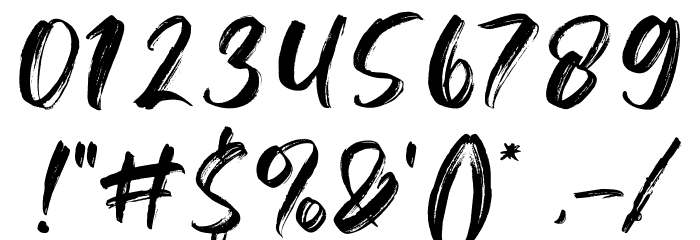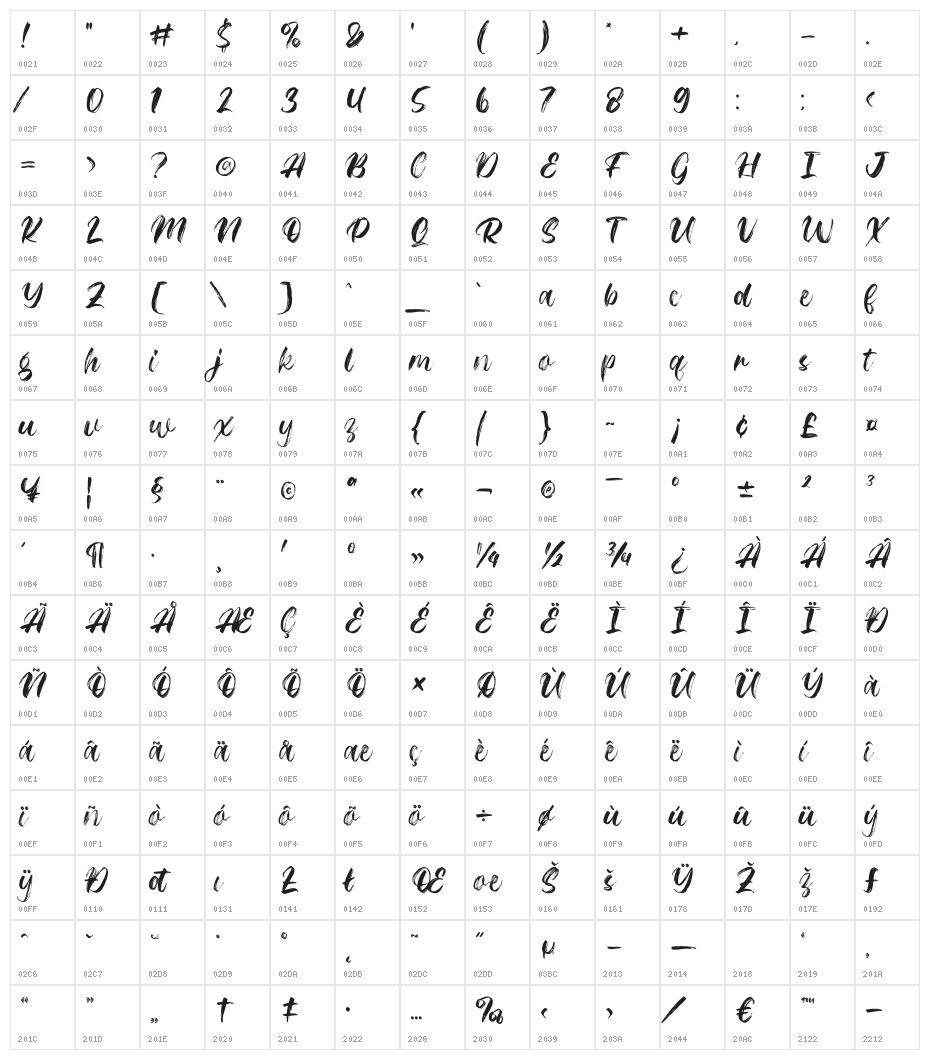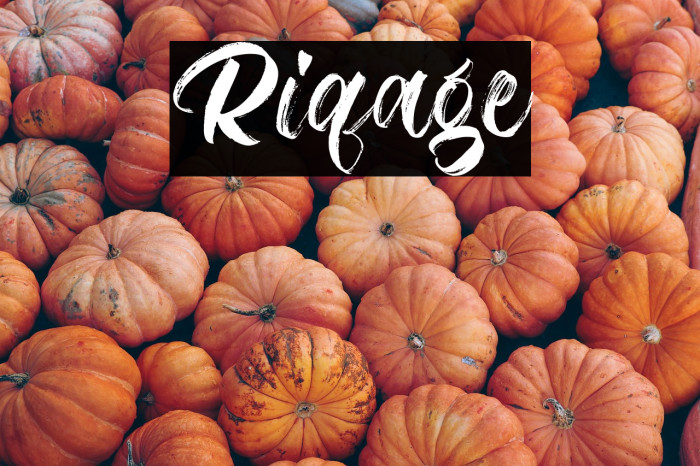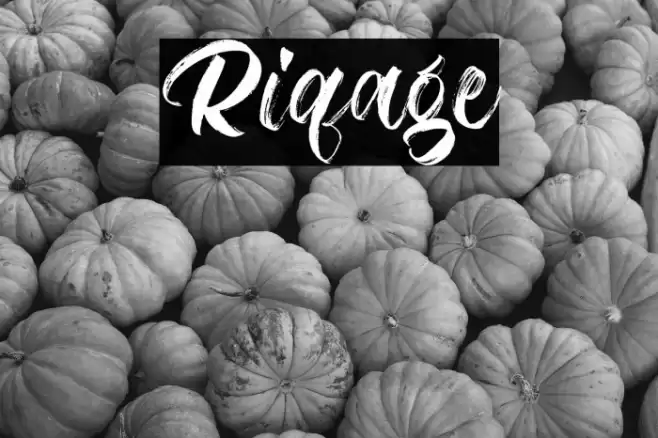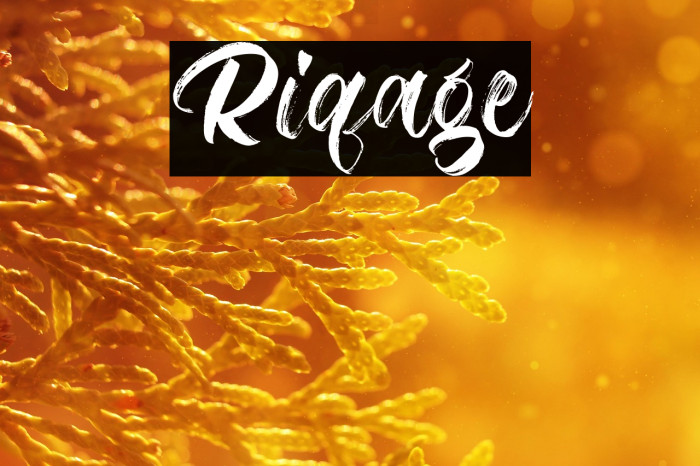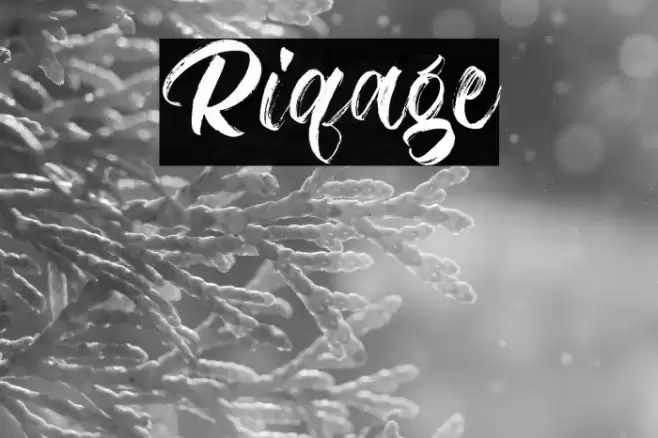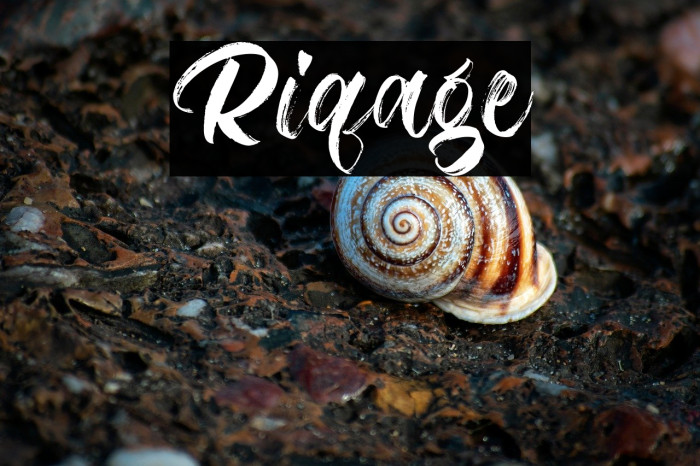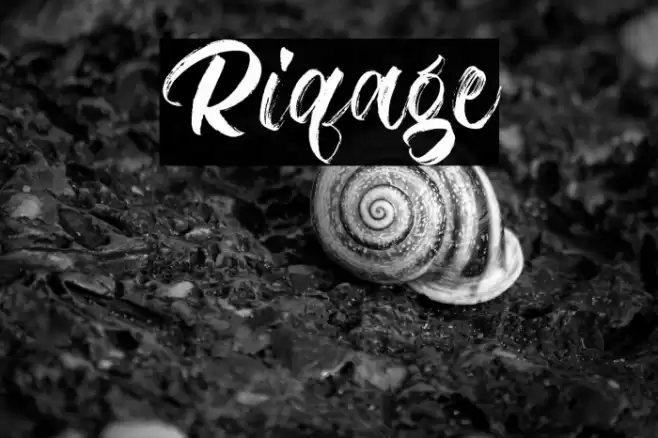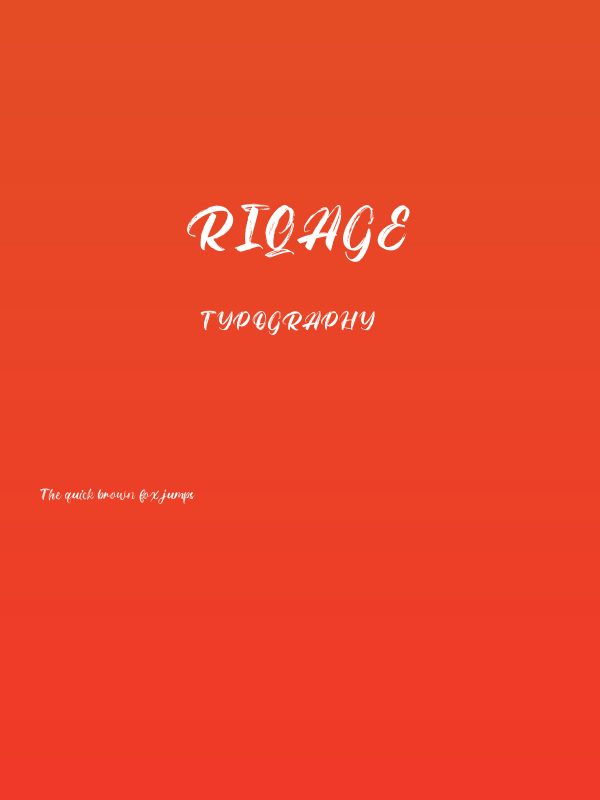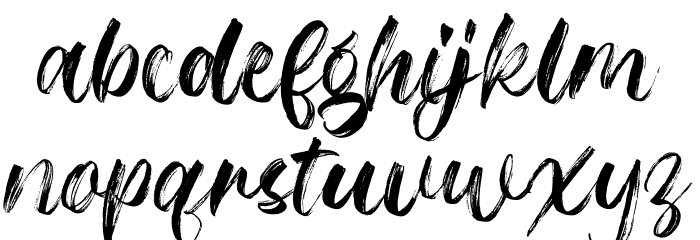
Riqage Font
Riqage Description
This font features a bold, expressive brush script style that exudes energy and dynamism. The strokes are thick and varied, with a hand-painted appearance that gives it a natural and artistic feel. The uppercase and lowercase letters flow seamlessly, with a slight slant that adds to its casual yet sophisticated look. The numbers and special characters maintain the same brush-like quality, ensuring consistency across all glyphs. This font is perfect for projects that require a personal touch, such as invitations, branding, and artistic designs.
| Use Case | Logos, Headlines, Artistic designs |
| Proposed Projects | Ideal for invitations, branding, artistic designs, and any project needing a personal touch. |